Story of Hints 06: “The Function of Font Dictionaries”
Latin fonts basically cover a single system called the Latin alphabet. However, Japanese fonts include characters with different structures, such as kanji, kana, alphanumerical characters, etc. The mechanism to process such multiple character classes is called a “font dictionary.”
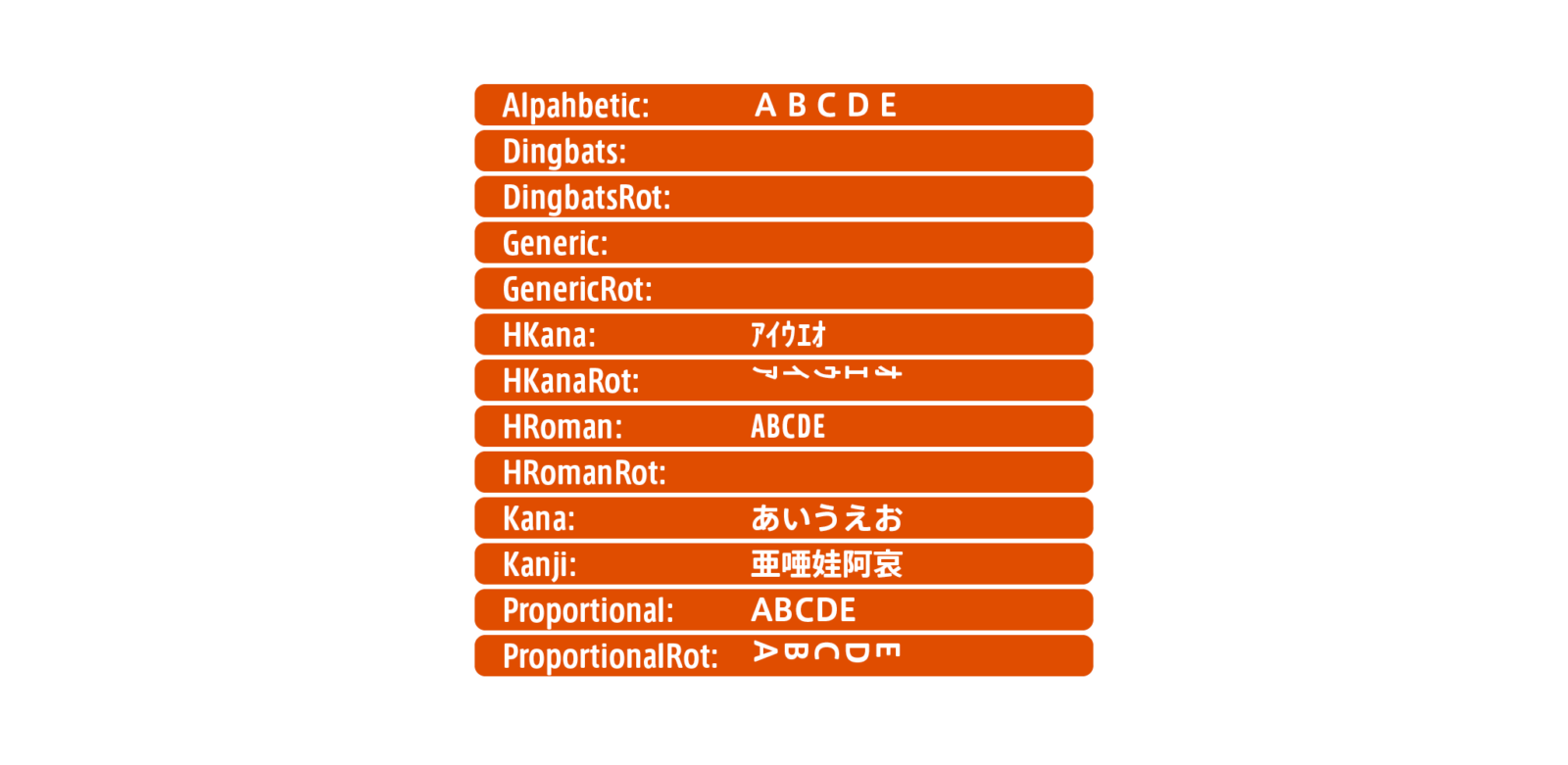
Common Japanese OpenType fonts in CFF format include dictionaries for “Kanji,” “Kana,” “Proportional Latin,” “Full-width Latin,” and “Half-width Latin.” Different settings can be applied for each dictionary, such as BlueValues, etc., previously introduced in this series.
The Latin alphabet is designed based on a “line alignment” system, but kanji and kana are placed based on a square frame called a “imaginary body,” so the concept of suppressing overshoot to align with a specific line is not a familiar process. Therefore, in dictionaries for kanji and kana, dummy values, which are practically non-functional, are set for BlueValues.